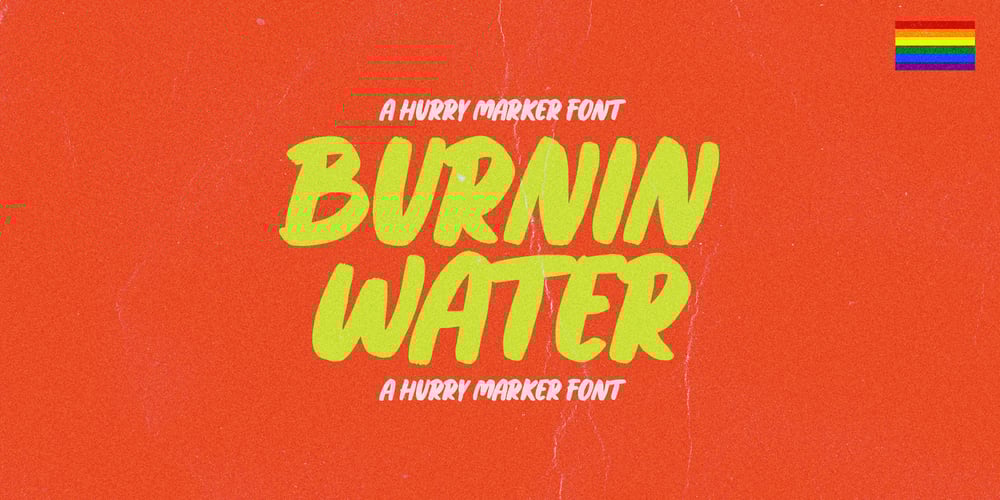
Burnin Water
Burnin Water font
Burnin Water Font Family was designed by Dmitrii Chirkov and published by Supfonts. Burnin Water contains 1 styles and family package options. Burning Water – a fun and modern marker font. Ideal for creating bright and catchy designs.Clear lines, dense structure, playful mood. Bold font for bold projectsLanguage support: All European languagesDon’t forget to subscribe so you don’t miss out on the new awesome fontsDima